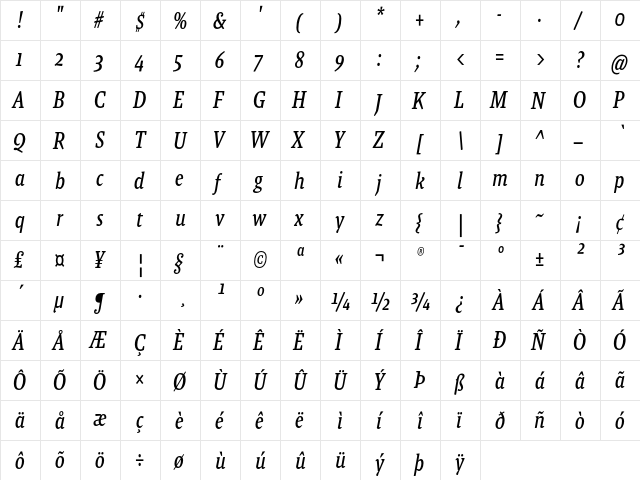
Malaga Narrow OT Reg Italic Font Preview
| Foundry | Emigre Inc. |
| Designer | Xavier Dupre |
Design Context for Malaga Narrow OT Typeface
Malaga Narrow OT takes a measured approach to typography — its balanced proportions and neutral character make it a reliable workhorse for both digital and print work. Its italic angle brings a sense of urgency and motion to the letterforms. Its narrow stance lets it pack a punch even in space-constrained designs.
Pro Tip: Try Malaga Narrow OT for annotation and caption copy alongside an upright companion — the contrast in angle creates a dynamic but ordered typographic system.